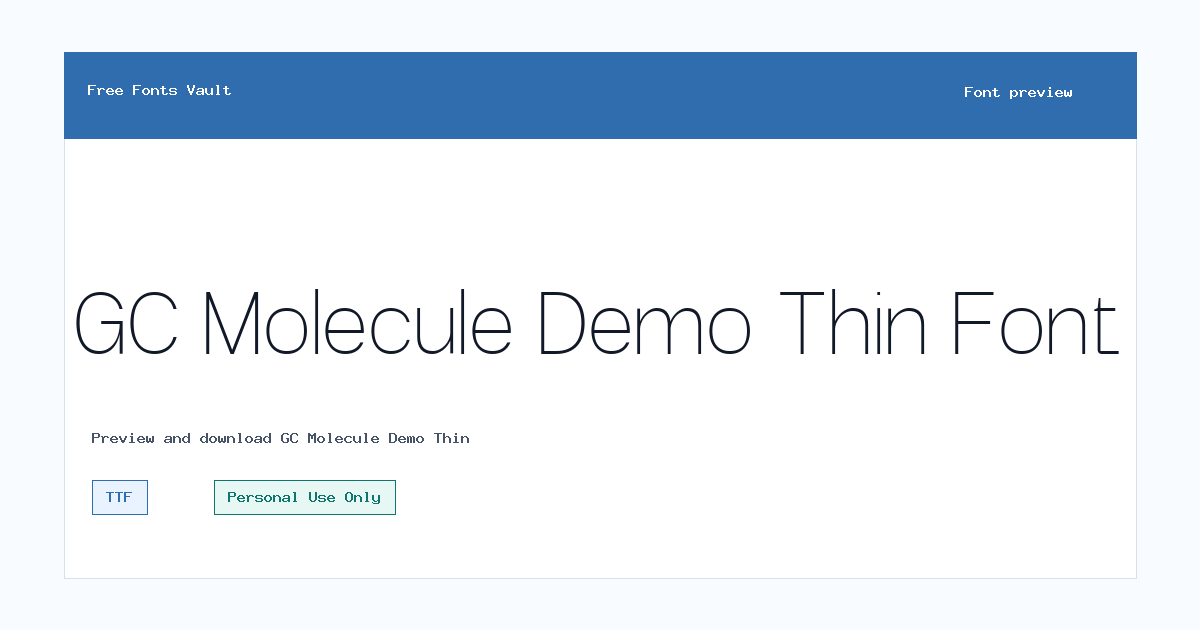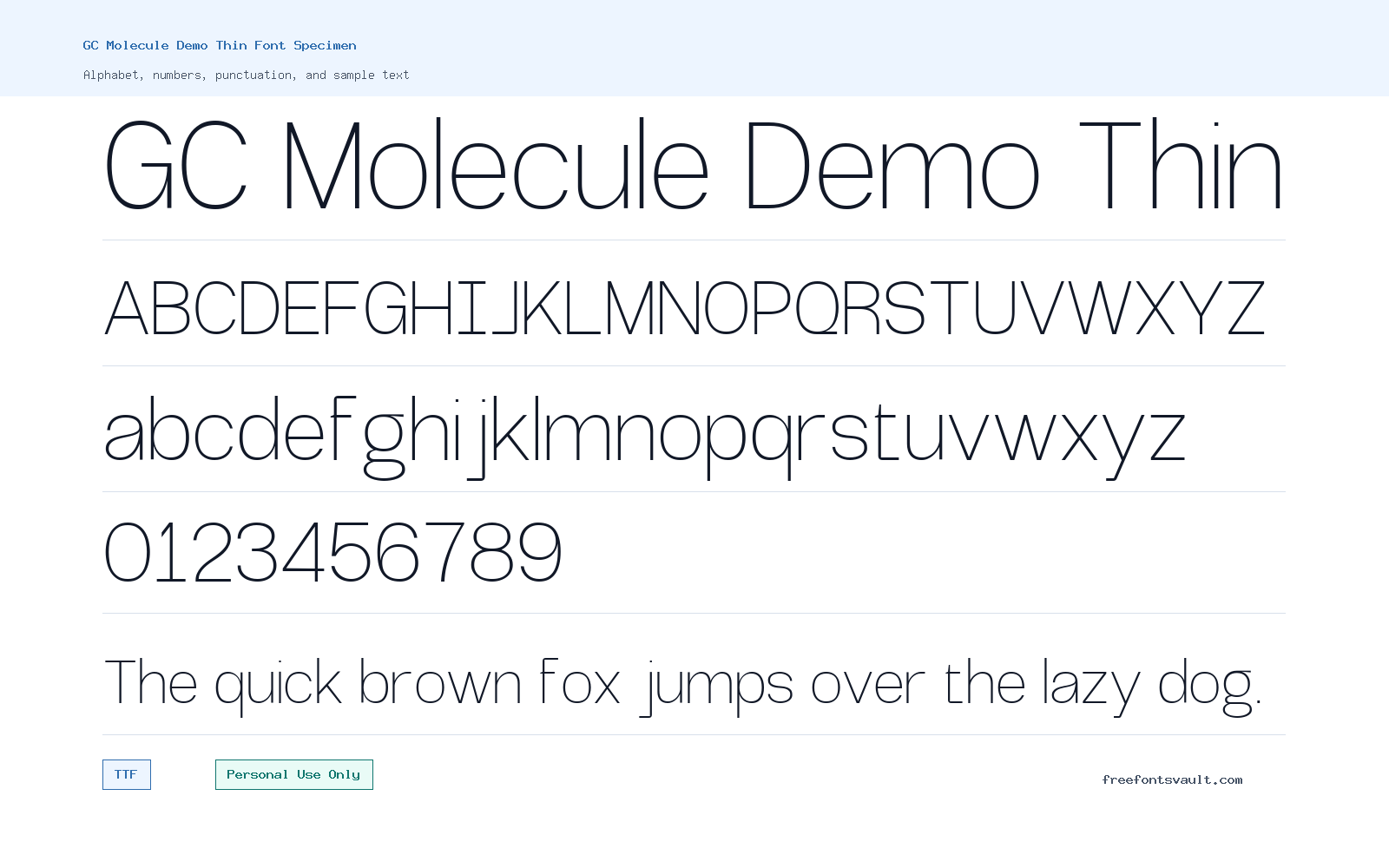
GC Molecule Demo Thin
- Designer Ken Priska Dewirani of Glyphonic
GC Molecule Demo Thin is a light-weight sans serif demo font with a slim, clean appearance. It is best treated as a personal-use font for testing display text, layout ideas, and simple design mockups before deciding whether the wider family fits your project.
About GC Molecule Demo Thin
When previewing the font, test it at the actual size you plan to use. Thin fonts can look crisp in large headlines but may lose contrast in small captions, low-resolution images, or busy backgrounds. Try it with plenty of spacing, simple colors, and a darker text color against a light background for clearer results. For longer text, pair it with a more readable regular-weight sans serif or a calm serif body font, and keep GC Molecule Demo Thin for accents, page titles, short quotes, or branding-style experiments.
- Thin 100-weight sans serif style suited to short display text and minimal layouts
- Personal design mockups, mood boards, posters, and title experiments
- Clean headings, labels, short quotes, and minimalist social graphics
GC Molecule Demo Thin is credited to Ken Priska Dewirani of Glyphonic, with Glyphonic listed as the foundry.
Use the preview box to check words with thin strokes, punctuation, numbers, and mixed-case text. Increase size and letter spacing if the letters feel too delicate. Avoid using this font for small body copy or over complex images, because the thin weight may become hard to read.
What kind of font is GC Molecule Demo Thin?
It is a thin sans serif demo font. The listed font weight is 100, which means it has a very light stroke compared with regular or bold styles.
What is GC Molecule Demo Thin best used for?
It works best for short display text such as titles, poster lines, labels, personal mockups, and minimalist design tests. It is not ideal for long paragraphs.
Who designed GC Molecule Demo Thin?
The font is credited to Ken Priska Dewirani of Glyphonic.